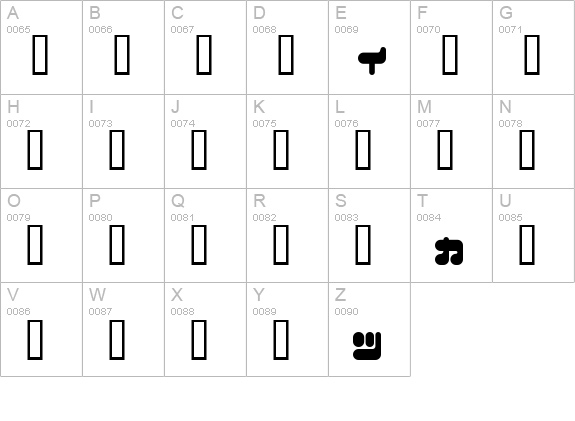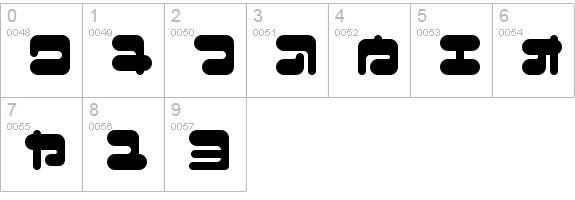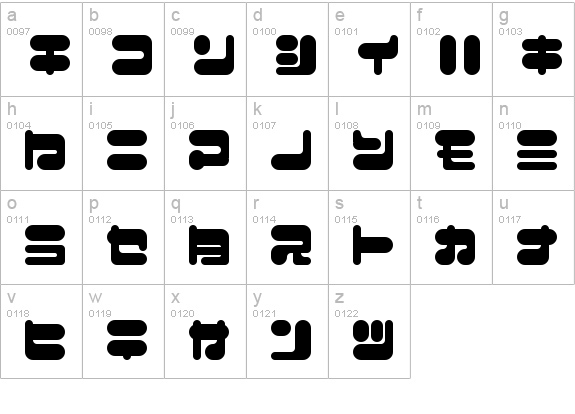
I2FuwafuwaFururu KS Font Details
Introducing the incredibly delightful I2FuwafuwaFururu KS font, a whimsical and playful typeface that brings a touch of magic to any design project. With its soft and fluffy appearance, this font is sure to captivate and enchant your audience. Designed with utmost care and attention to detail, I2FuwafuwaFururu KS font is perfect for adding a charming and cheerful atmosphere to various creative endeavors. Whether you're crafting invitations for a child's birthday party, designing a colorful poster, or creating an eye-catching logo, this font will inject a sense of joy and lightheartedness into your work. The versatility of I2FuwafuwaFururu KS font allows it to be used across a wide range of mediums, from digital designs to print materials. Its smooth curves and gentle lines lend themselves beautifully to both large headlines and smaller body text, ensuring legibility and readability in any context. And the best part? I2FuwafuwaFururu KS font is available for free! You can easily download this delightful font at FontsMarket.com, your one-stop destination for high-quality fonts. Whether you're a professional designer or a hobbyist, this font provides a fantastic opportunity to add a touch of whimsy to your projects without breaking the bank. So why wait? Let your creativity soar and bring a sense of magic to your designs with the enchanting I2FuwafuwaFururu KS font. Download it for free at FontsMarket.com and let the fluffy charm of this font breathe life into your next creative endeavor.